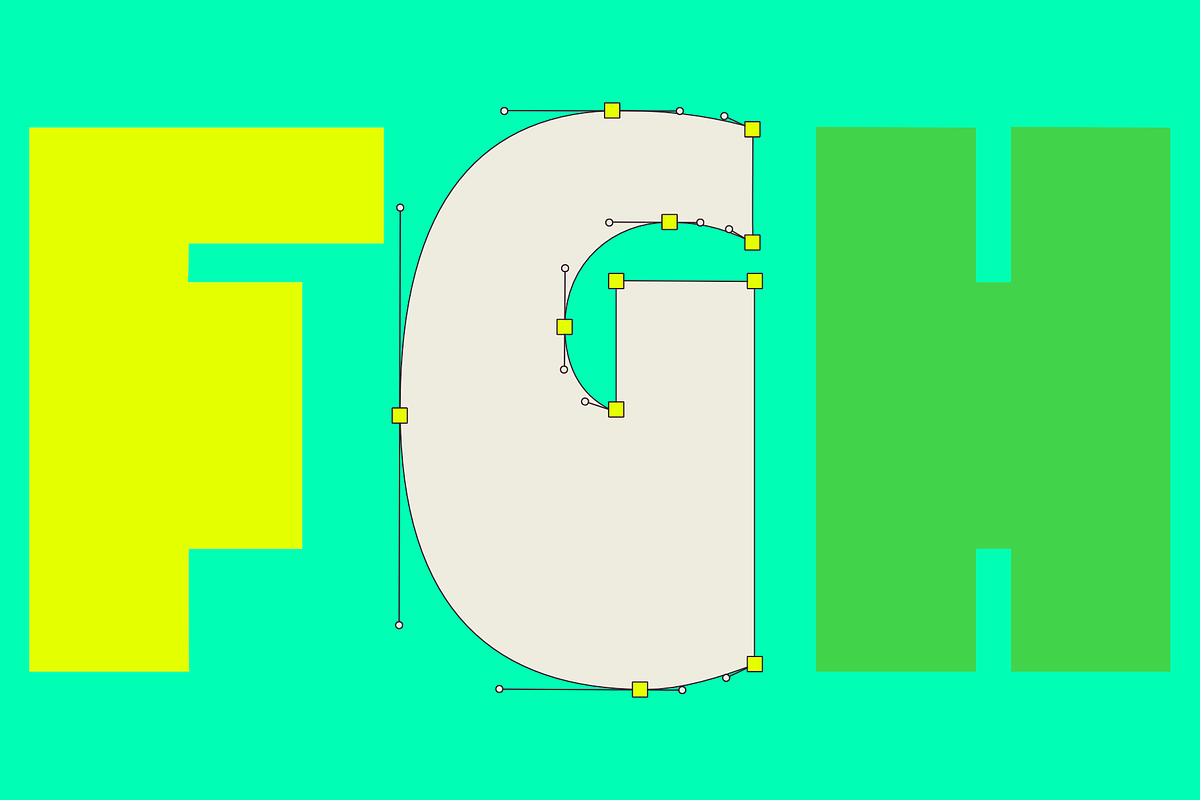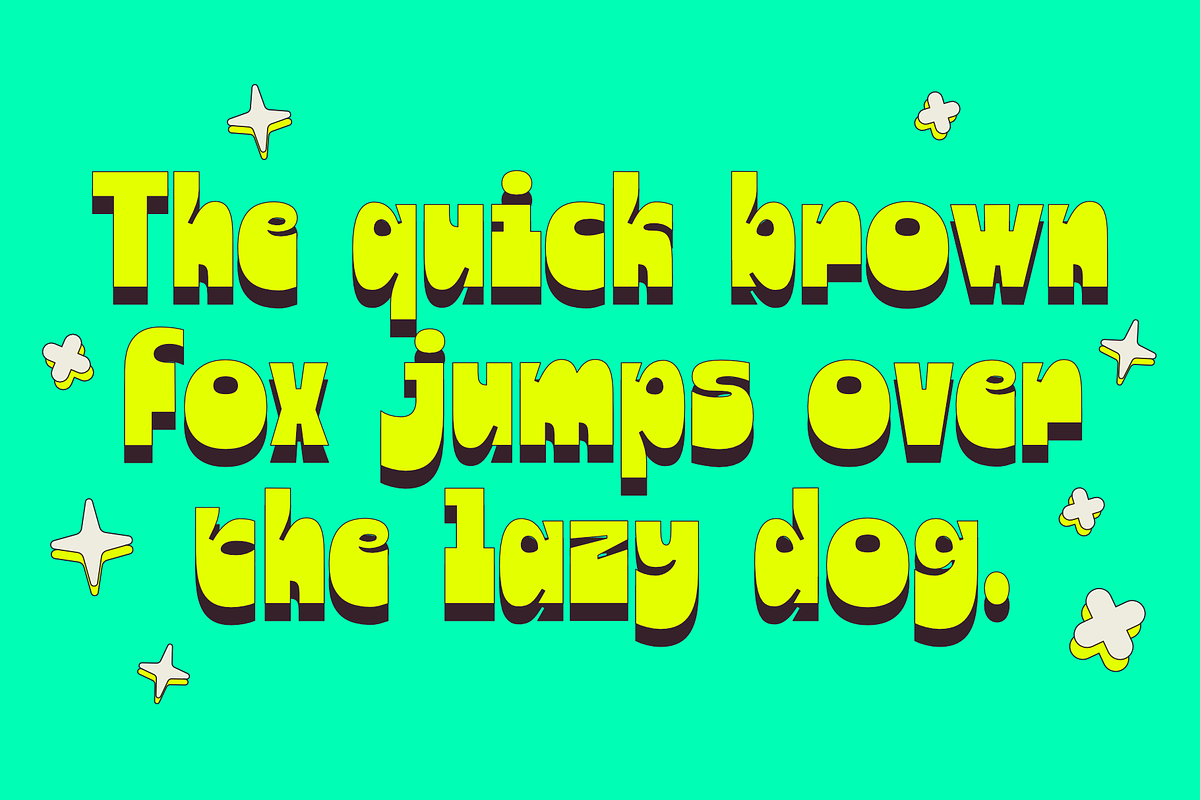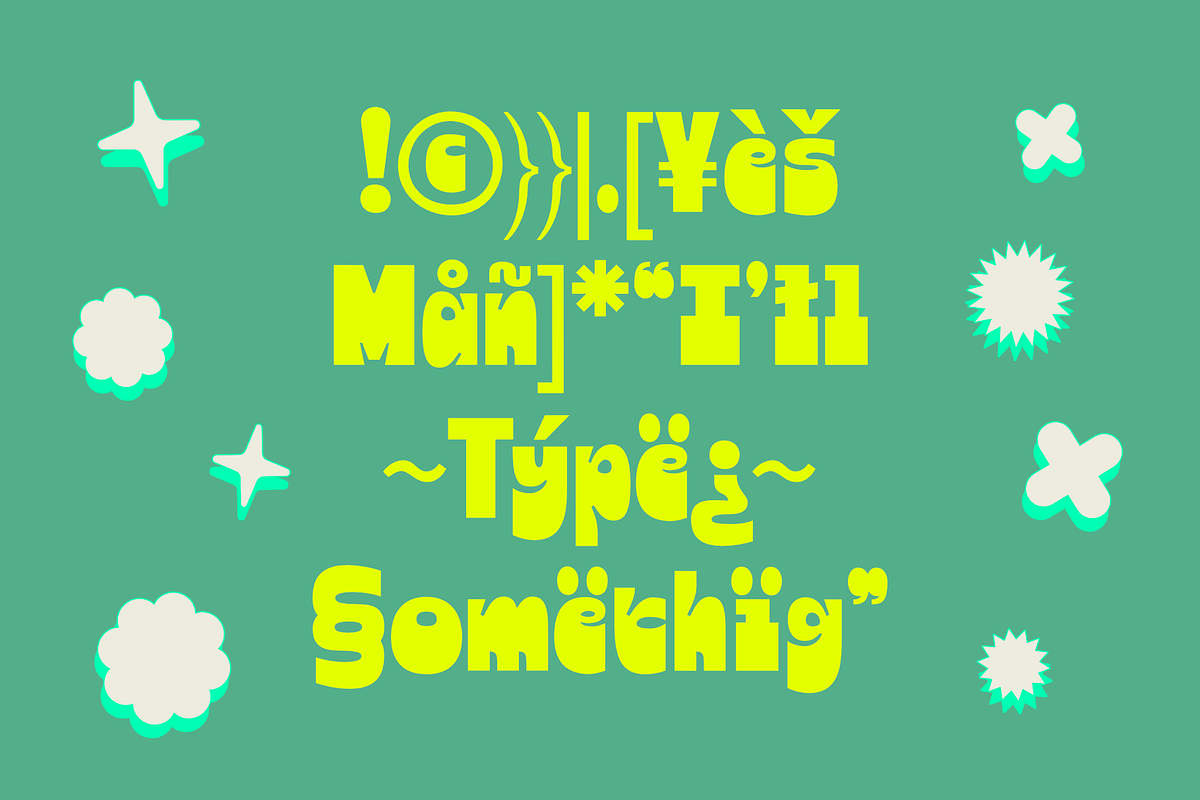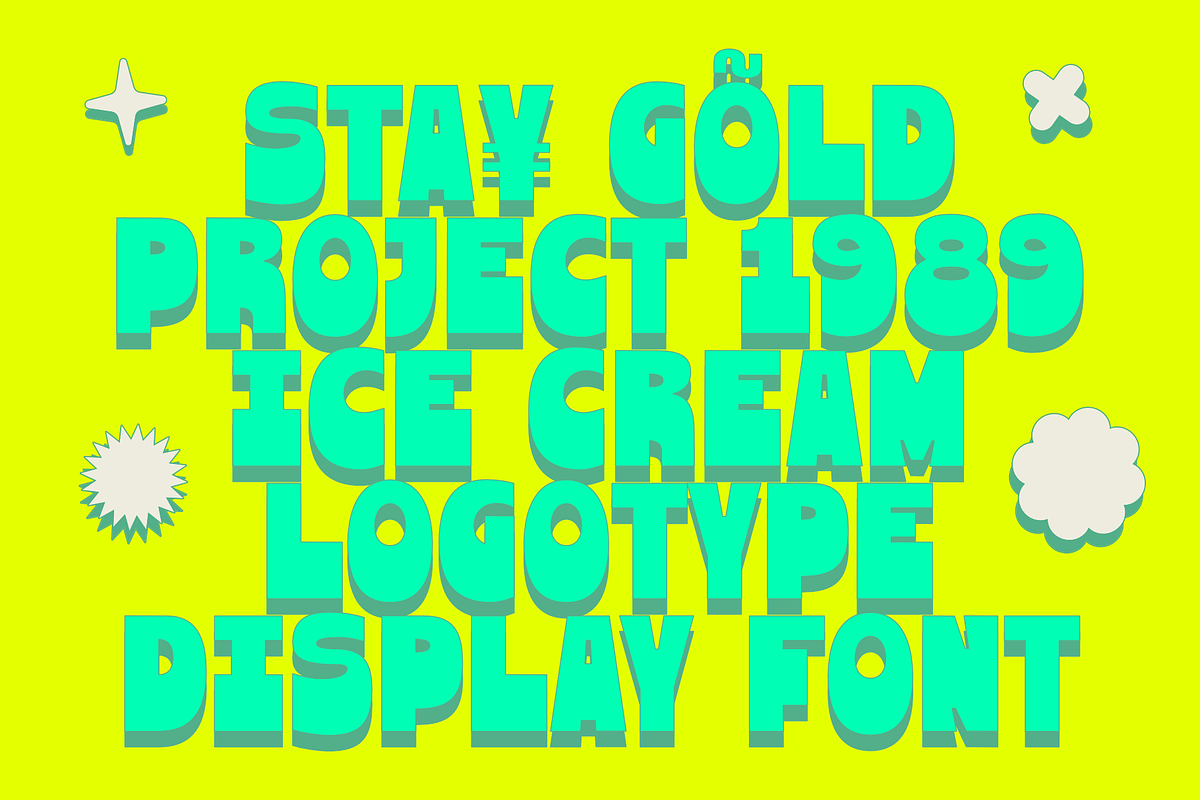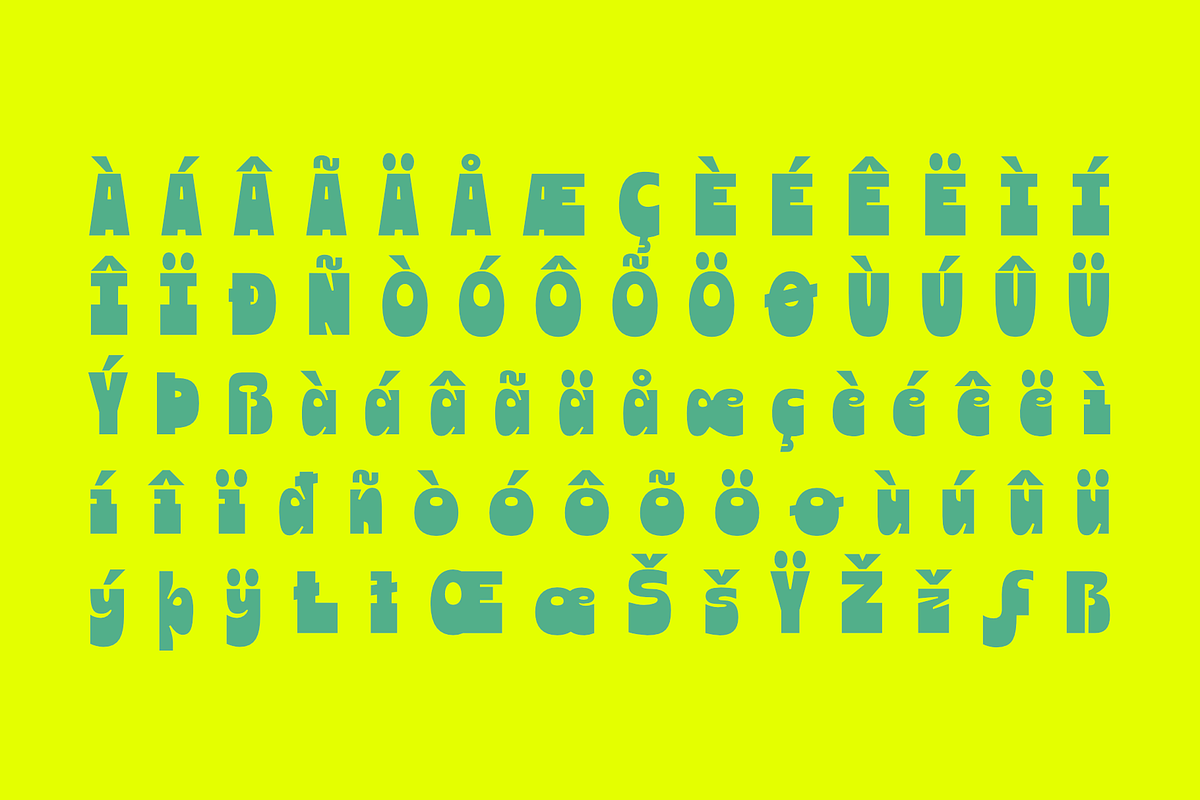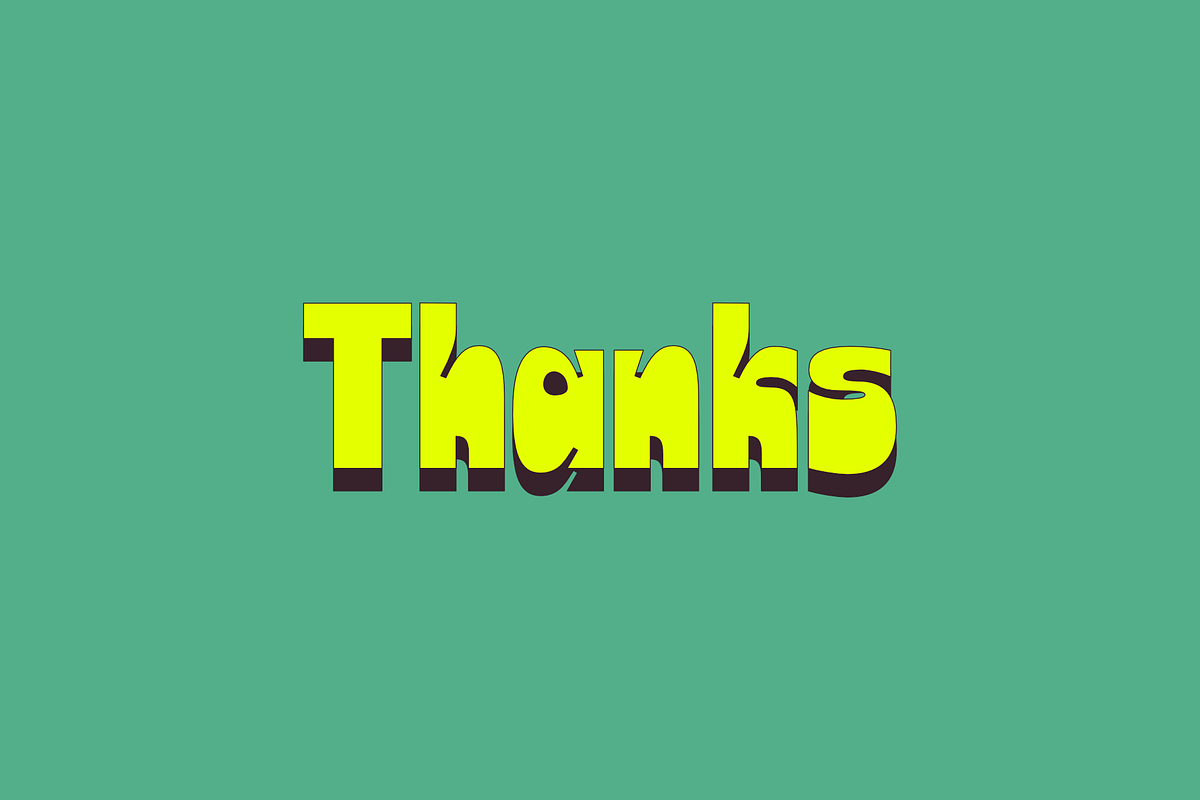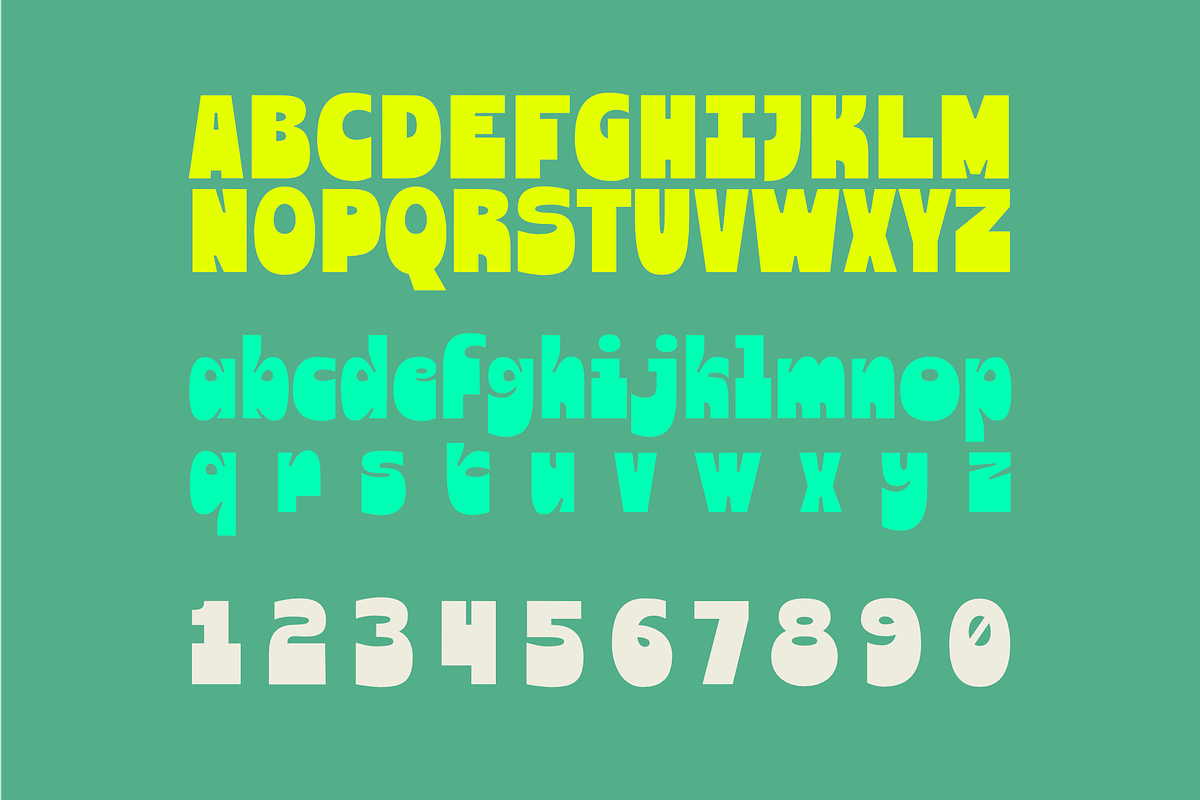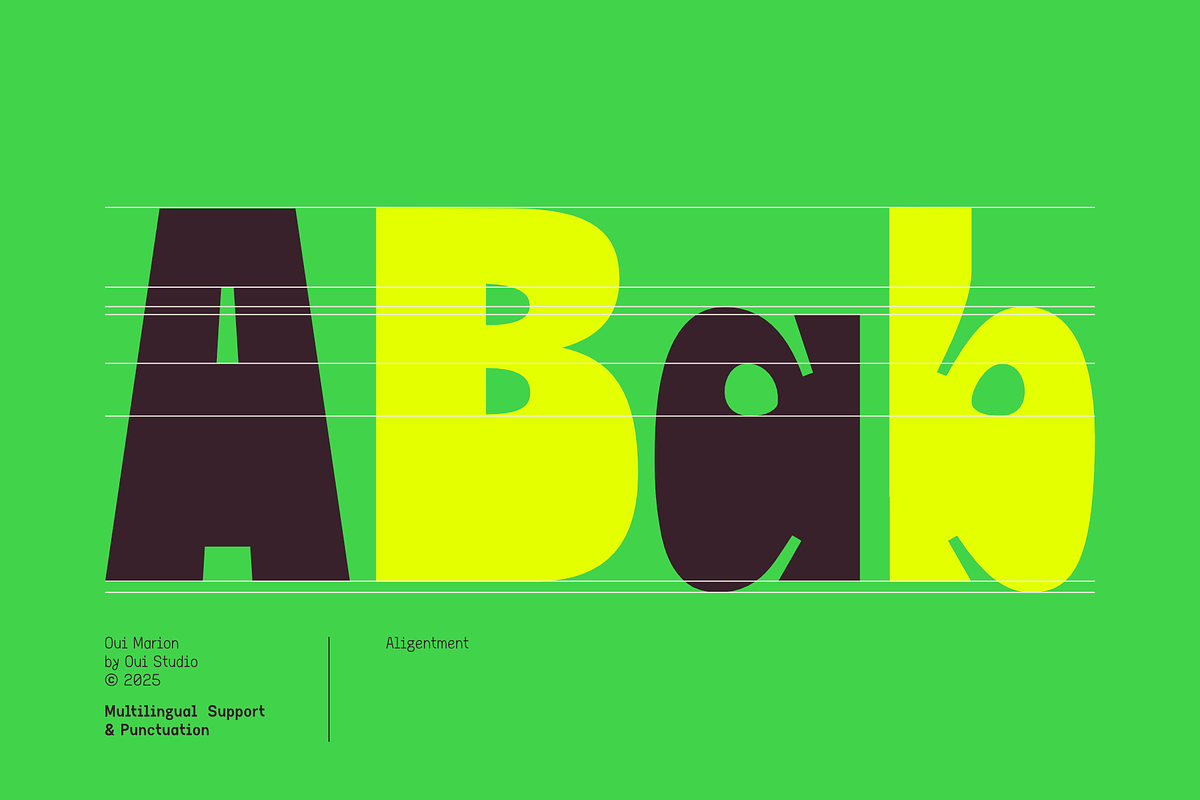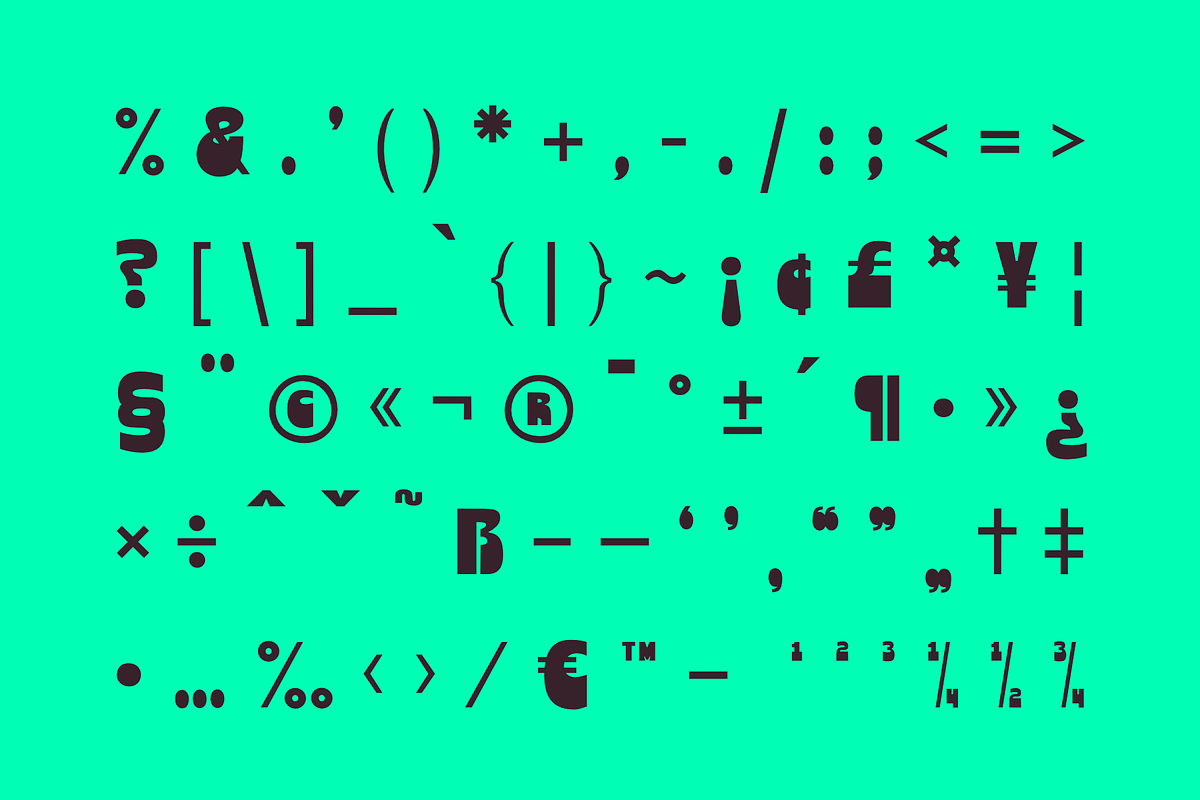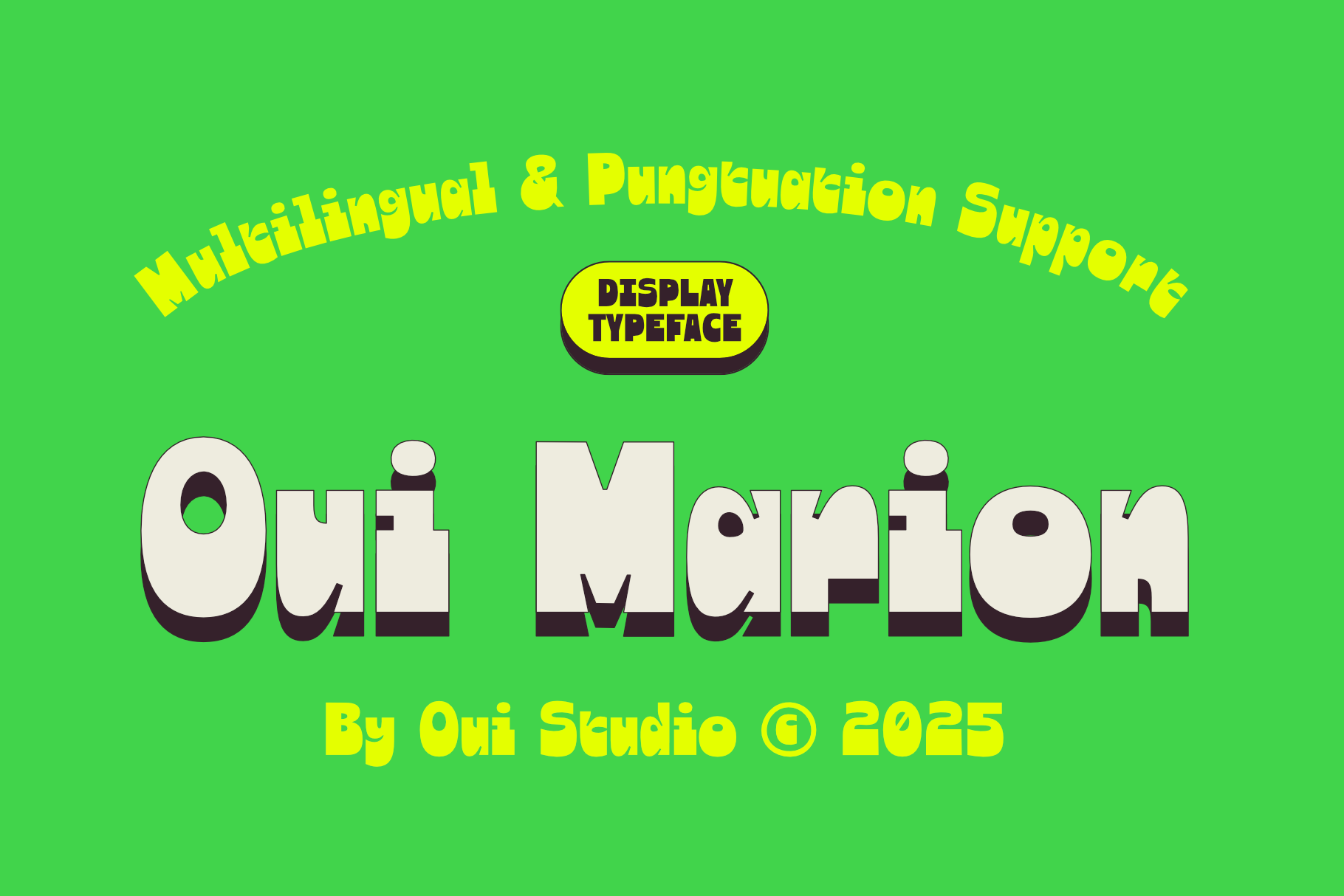
Oui Marion Bold & Bouncy Font
Oui Marion is a bold and bouncy display font that radiates fun and confidence. With its soft geometric forms and playful proportions, this typeface feels both retro and refreshingly modern. Each letter carries a friendly, hand-cut charm that gives your text a sense of movement and character. Oui Marion is perfect for designers who want to bring energy and approachability to their work — a typeface that doesn’t take itself too seriously yet always stands out.
Ideal for posters, headlines, packaging, and branding, Oui Marion shines in projects that call for creativity and positivity. Whether you’re designing for children’s products, event graphics, or lifestyle brands, this font brings a joyful and expressive touch to every composition. Oui Marion is more than just a typeface — it’s a celebration of bold shapes and happy vibes.